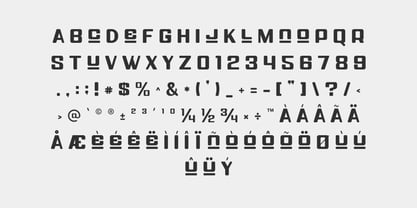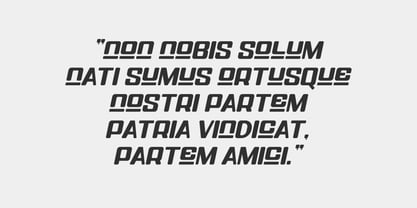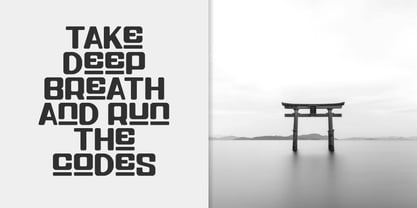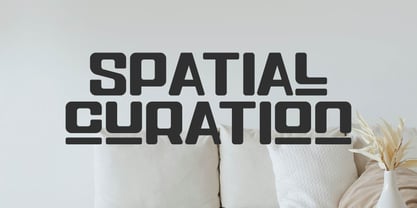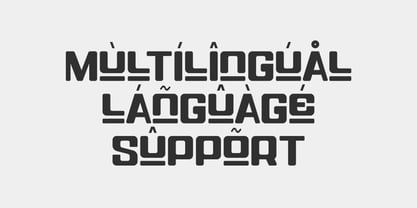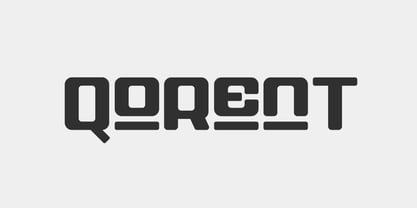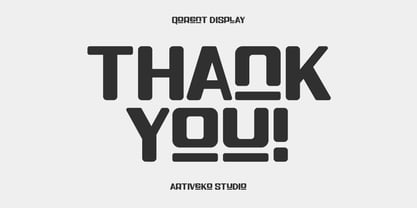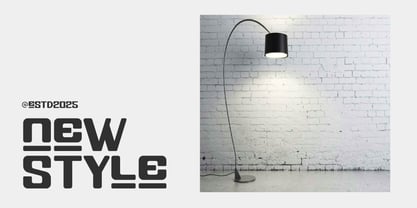
Qorent
La famille de polices Qorent a été conçue par Iwan Alwan et publiée par Artiveko. Qorent contient 2 styles et options de package familial.
À propos de la famille
Qorent is a creative display font designed to break the mold and spark imagination. With its expressive shapes, unexpected curves, and artistic flair, Qorent turns every letter into a visual centerpiece. This is not your everyday font — it’s made for headlines that stand out, logos that leave an impression, and designs that dare to be different.
Perfect for branding, posters, album covers, fashion campaigns, or editorial spreads, Qorent combines creativity with structure in a way that feels fresh yet intentional. It features uppercase and lowercase letters, multilingual support, and a selection of alternates and ligatures that open the door to endless design variations. Whether you're building a bold identity or adding personality to a modern layout, Qorent brings energy, uniqueness, and style to your project. Be expressive. Be artistic. Be Qorent.